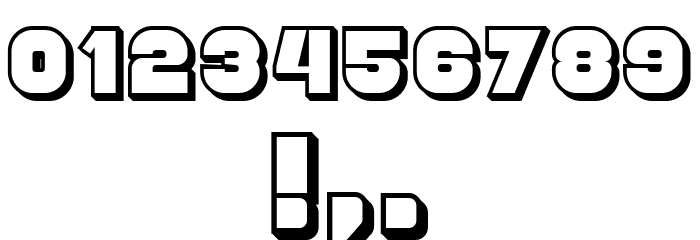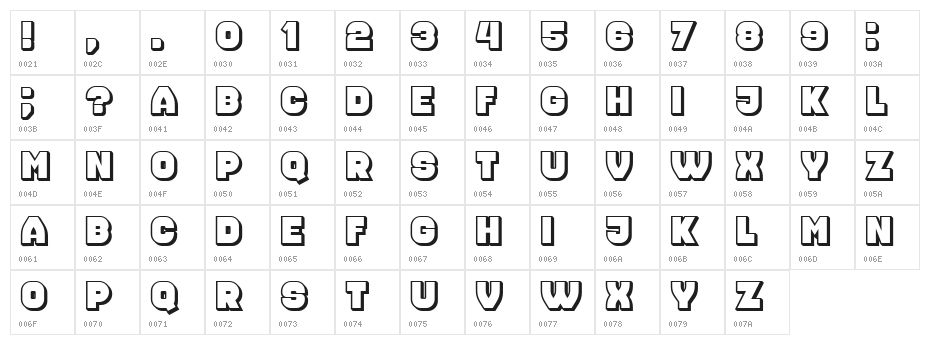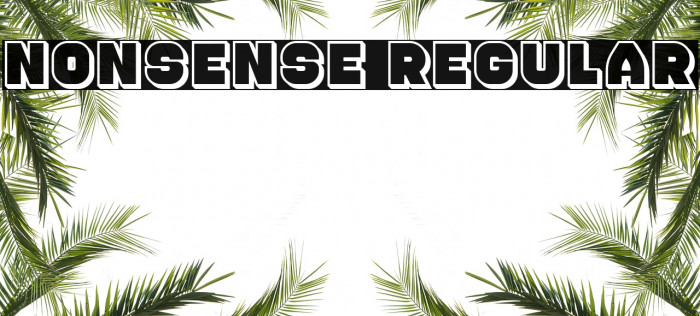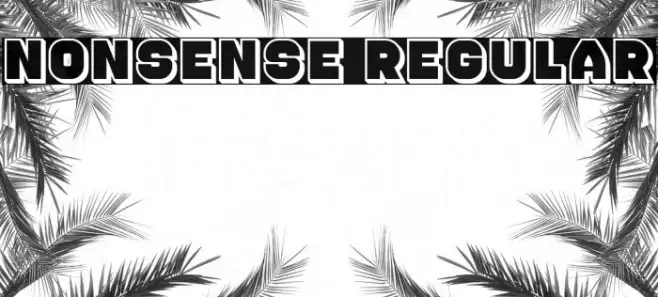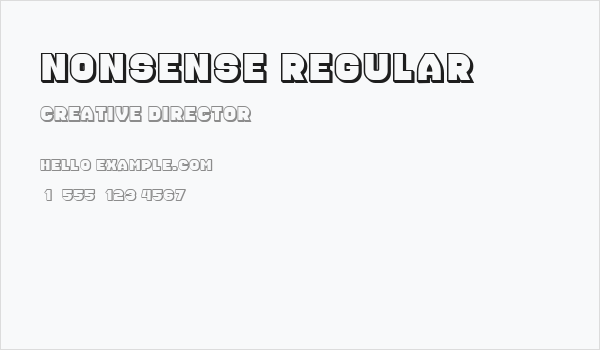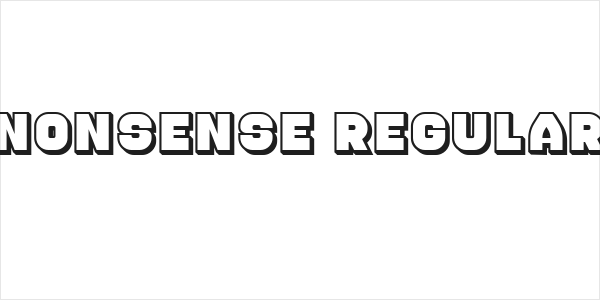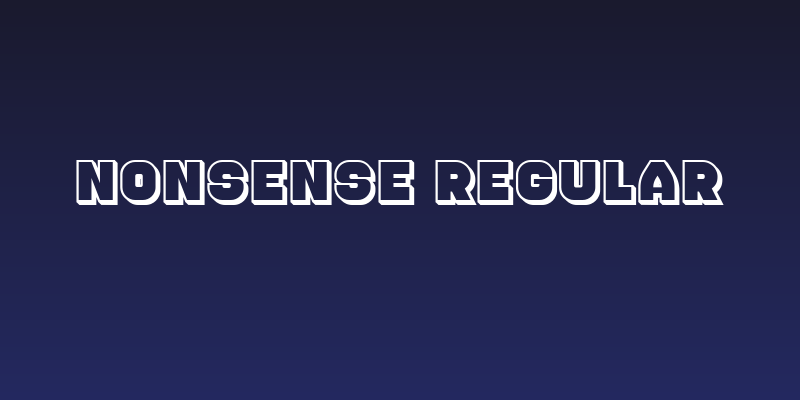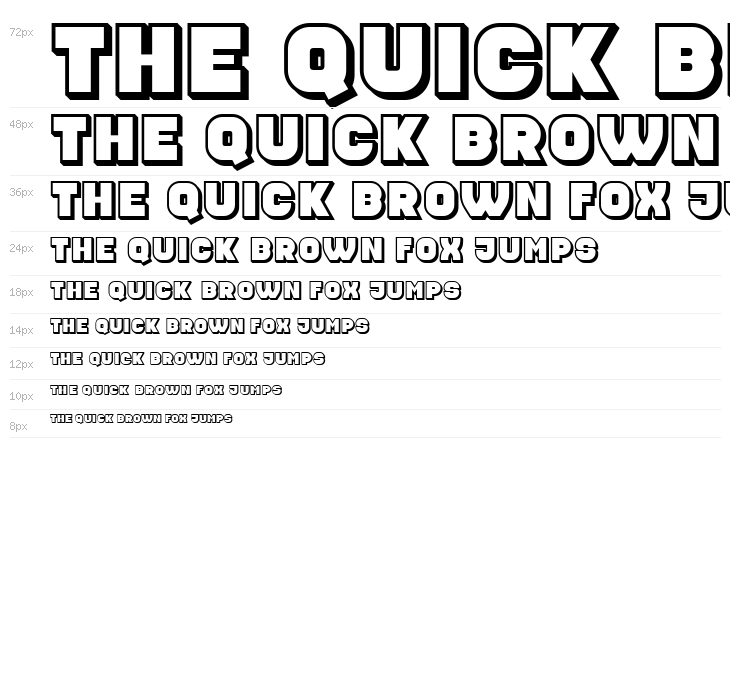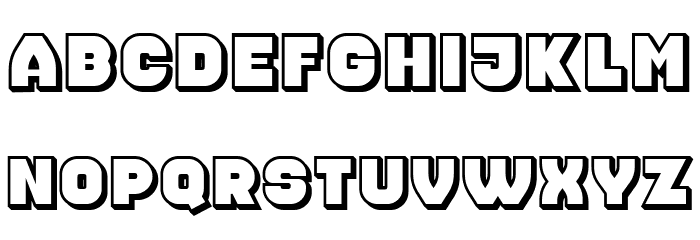
Nonsense Regular Font
Nonsense Regular Description
This font features a bold, three-dimensional appearance with a strong, impactful presence. The characters are outlined with a thick black border, creating a shadow effect that gives depth and dimension. The letterforms are geometric and uniform, with a consistent width and height that enhances readability. The style is playful yet structured, making it suitable for designs that require a bold statement. The numbers and special characters maintain the same three-dimensional effect, ensuring consistency across all elements.
| Proposed Projects | Ideal for posters, headlines, logos, and any design requiring a bold, eye-catching font. |